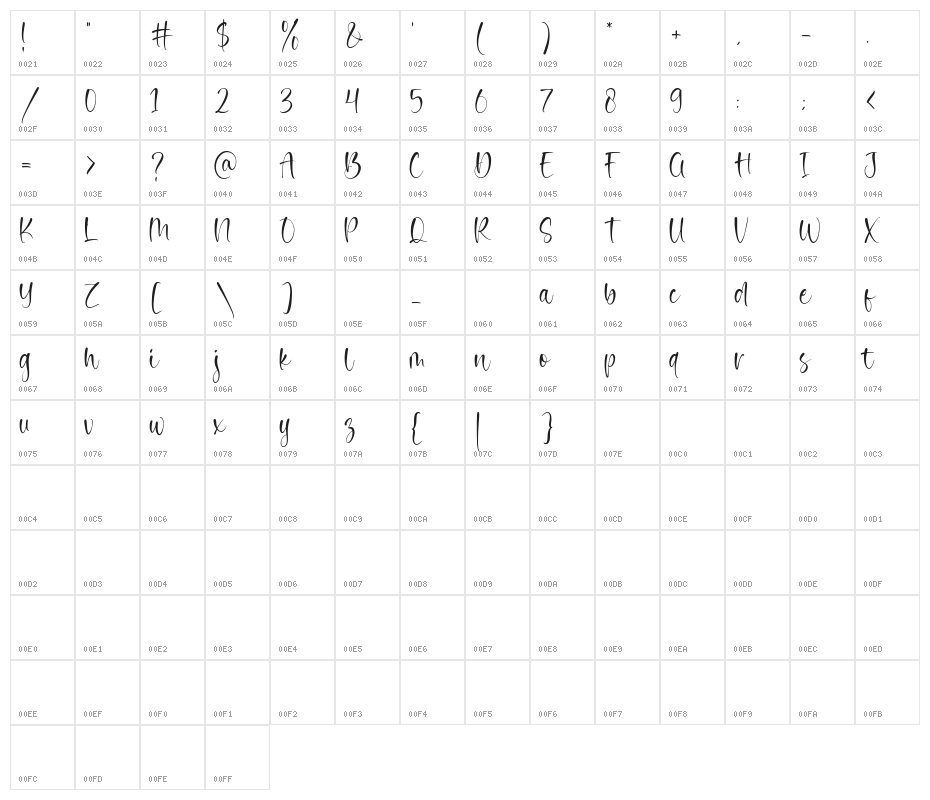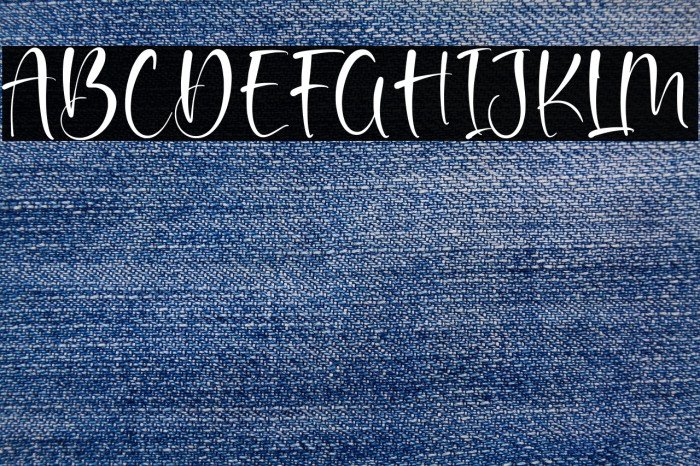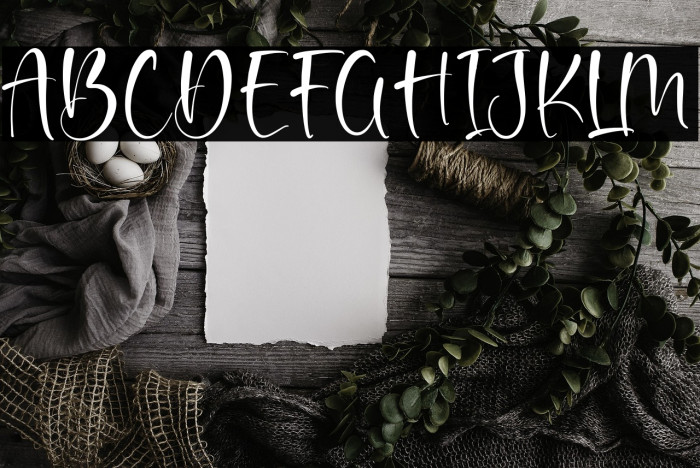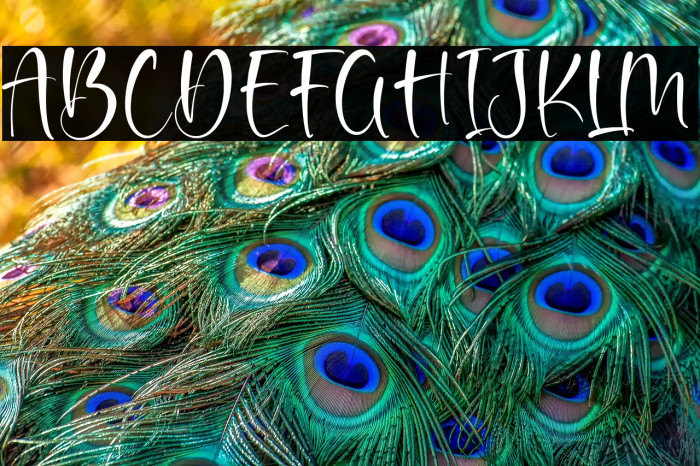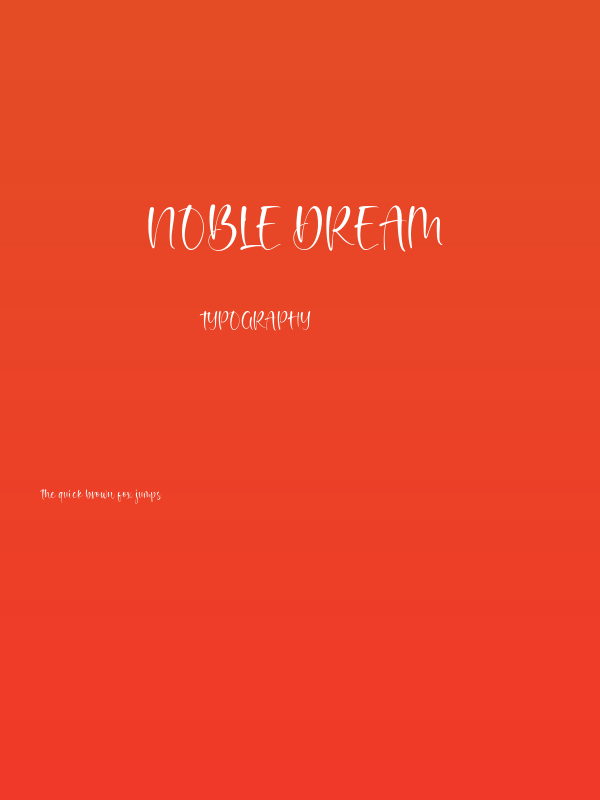
Noble Dream Font
Noble Dream Description
A flowing, cursive script font with elegant loops and a handwritten feel, suitable for creative and decorative projects.
| Proposed Projects | Wedding invitations, greeting cards, branding, and decorative signage. |